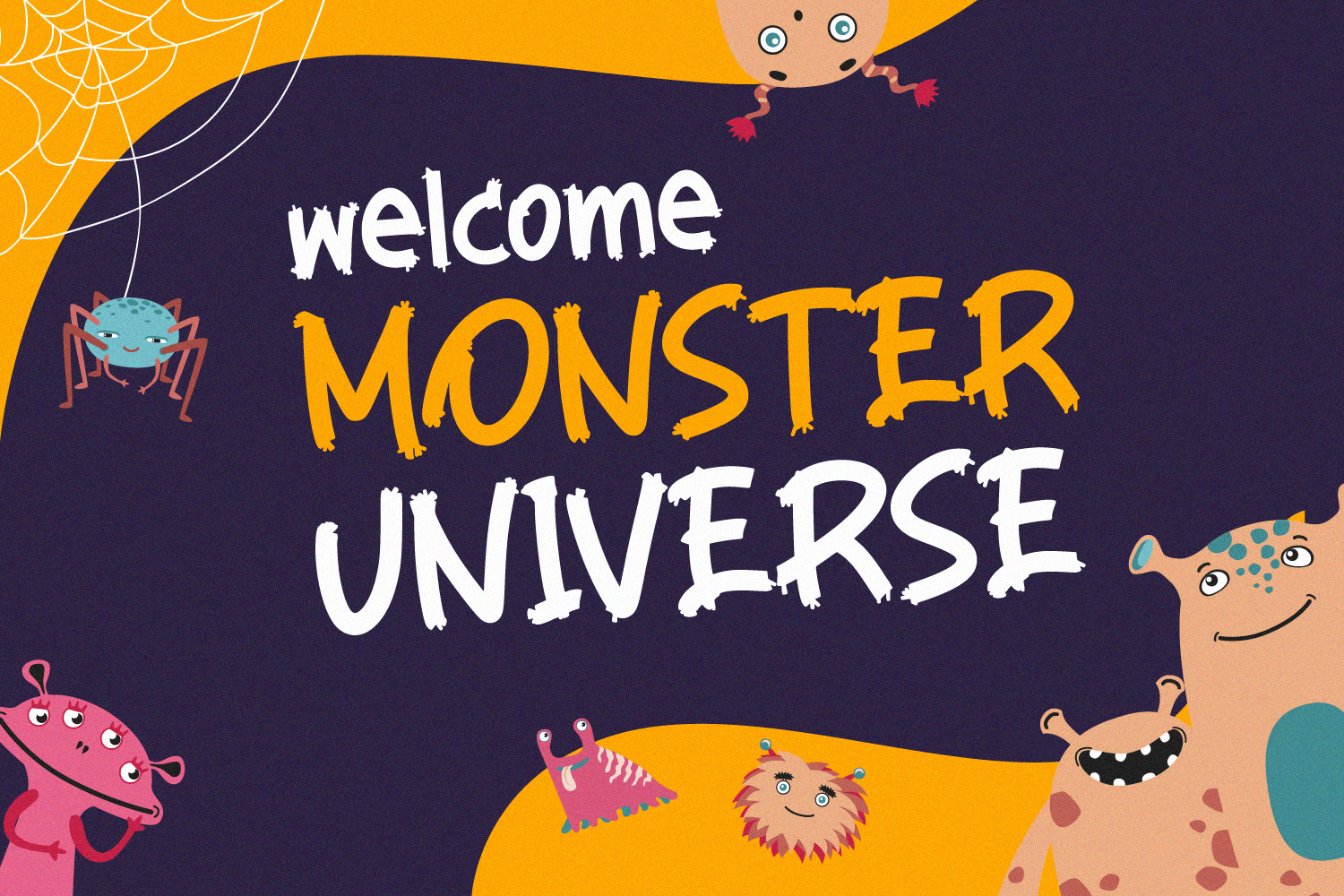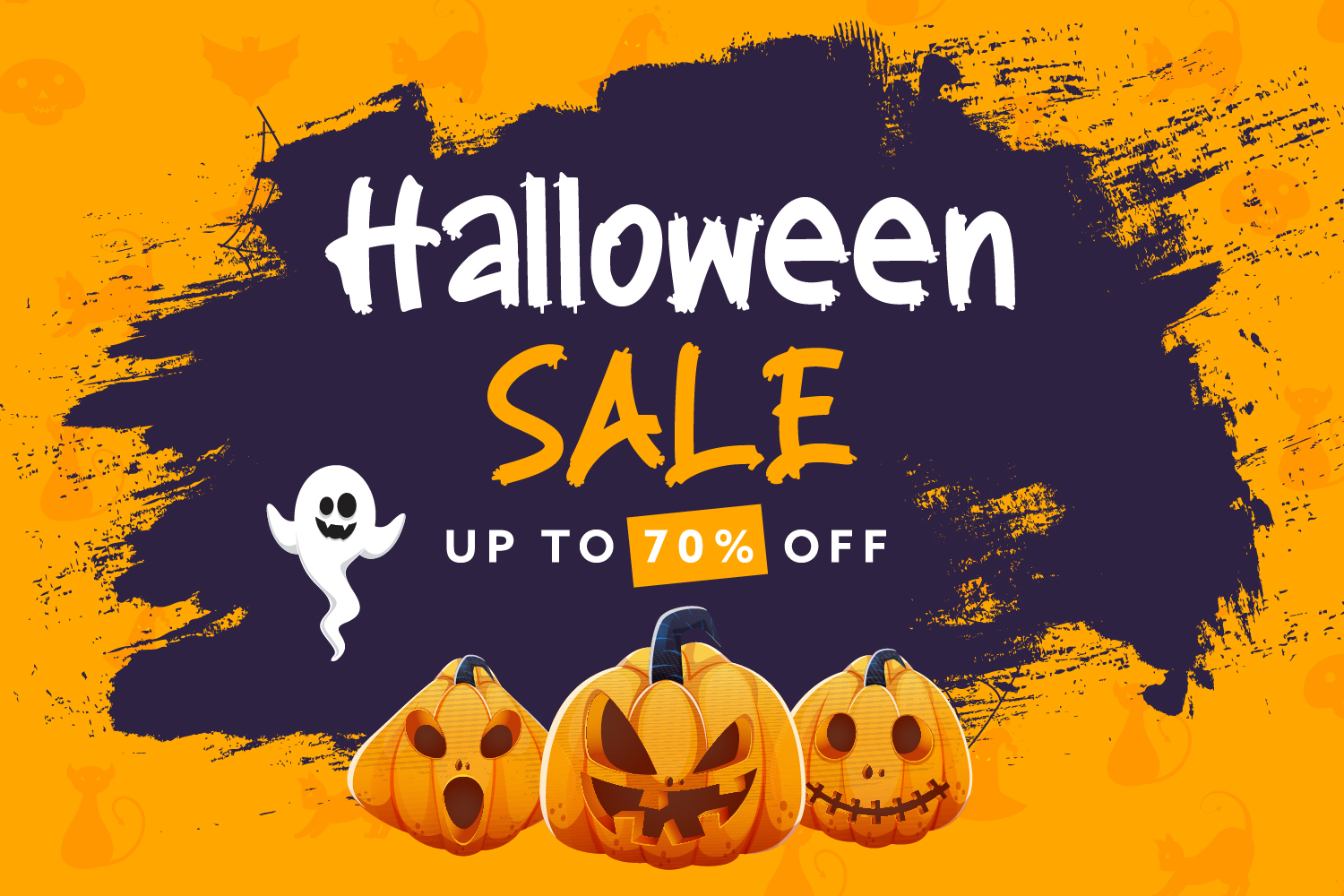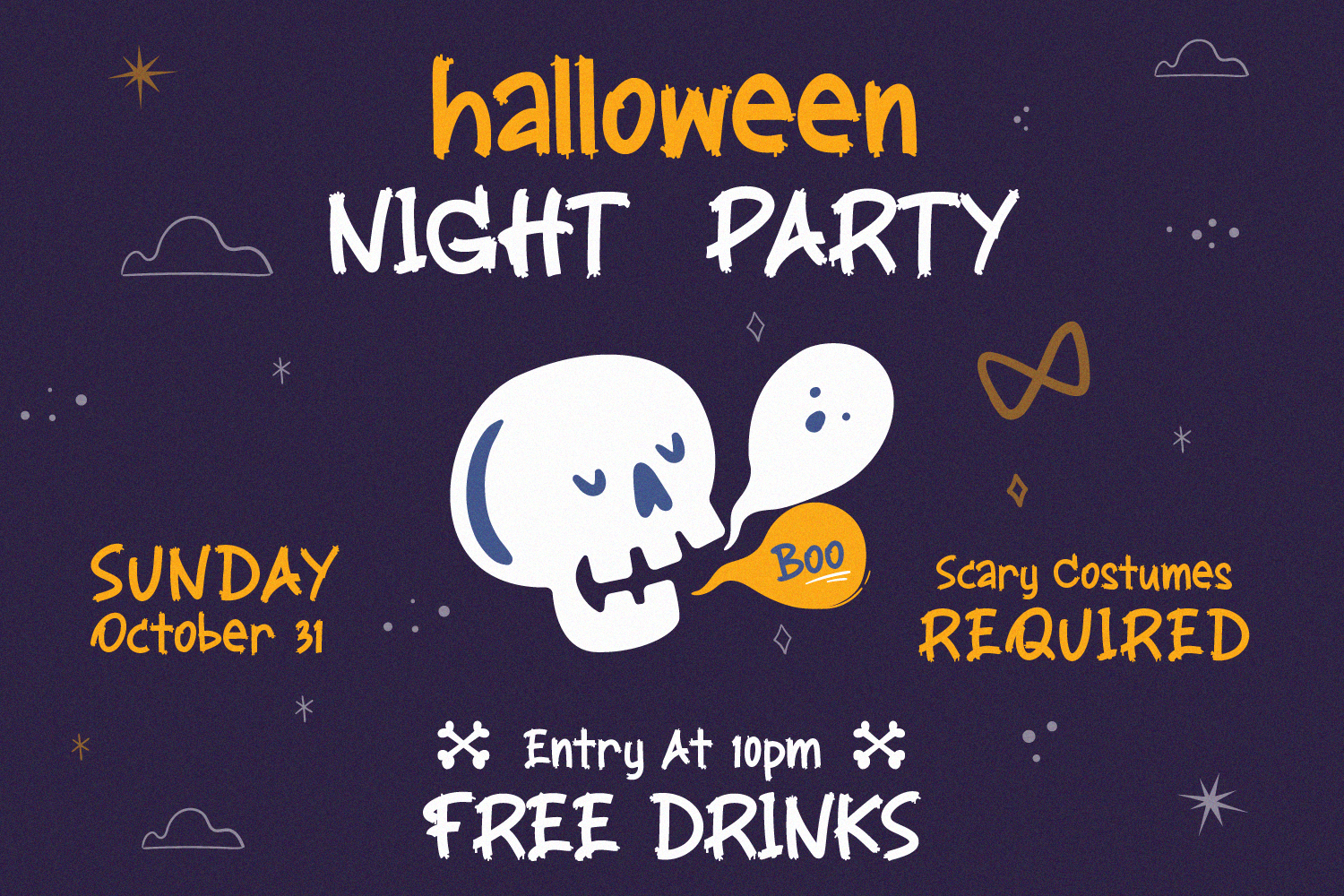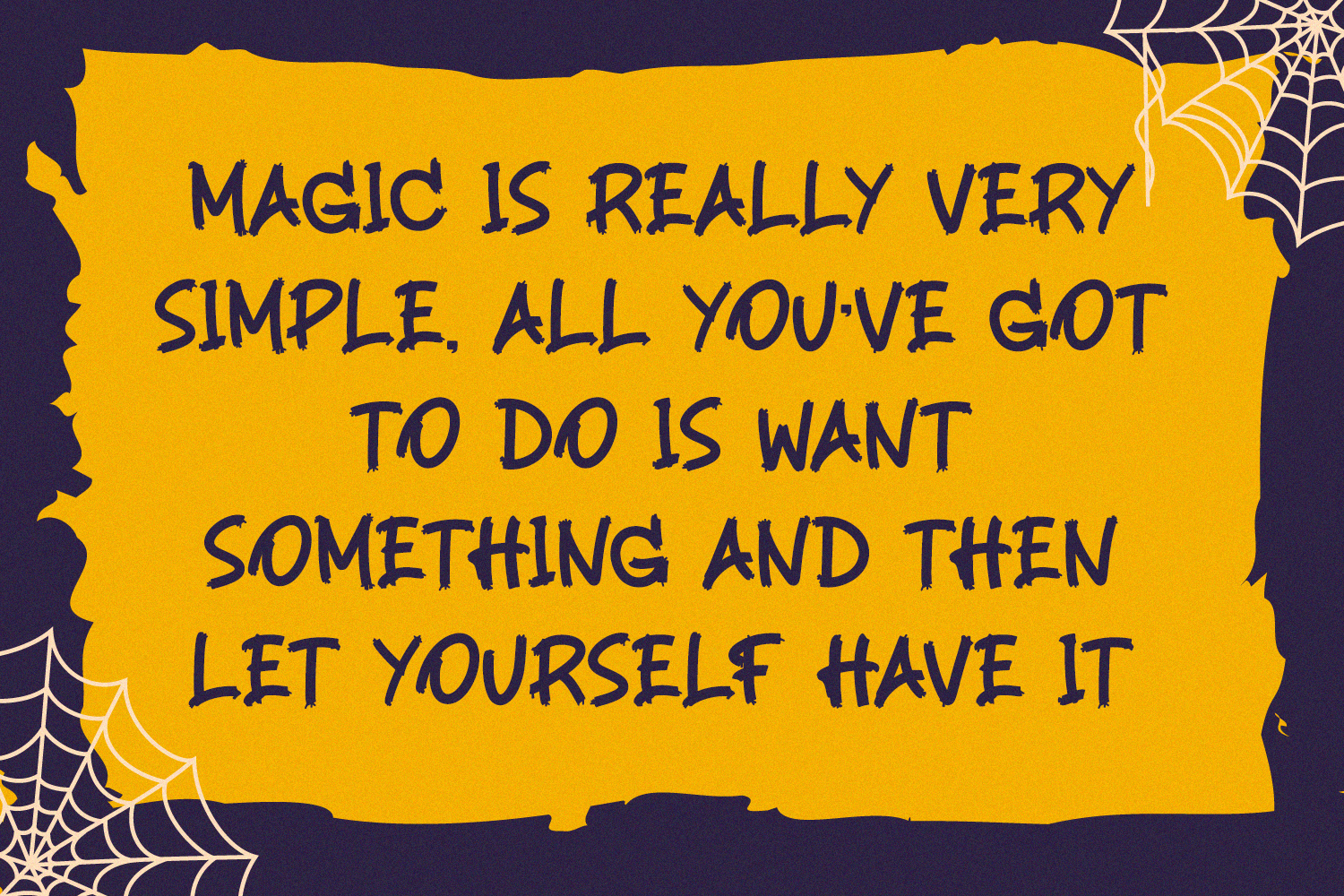
Midnight Shadows Font
Midnight Shadows Display Font
This is a stunning playful display font with cute and casual feels. It will be perfectly used for Branding, Logo Design, Lettering, Logotype, Clothing, Poster, magazine, packaging, posters, shopping bags, t-shirts, book covers, photography, special events and other design project.